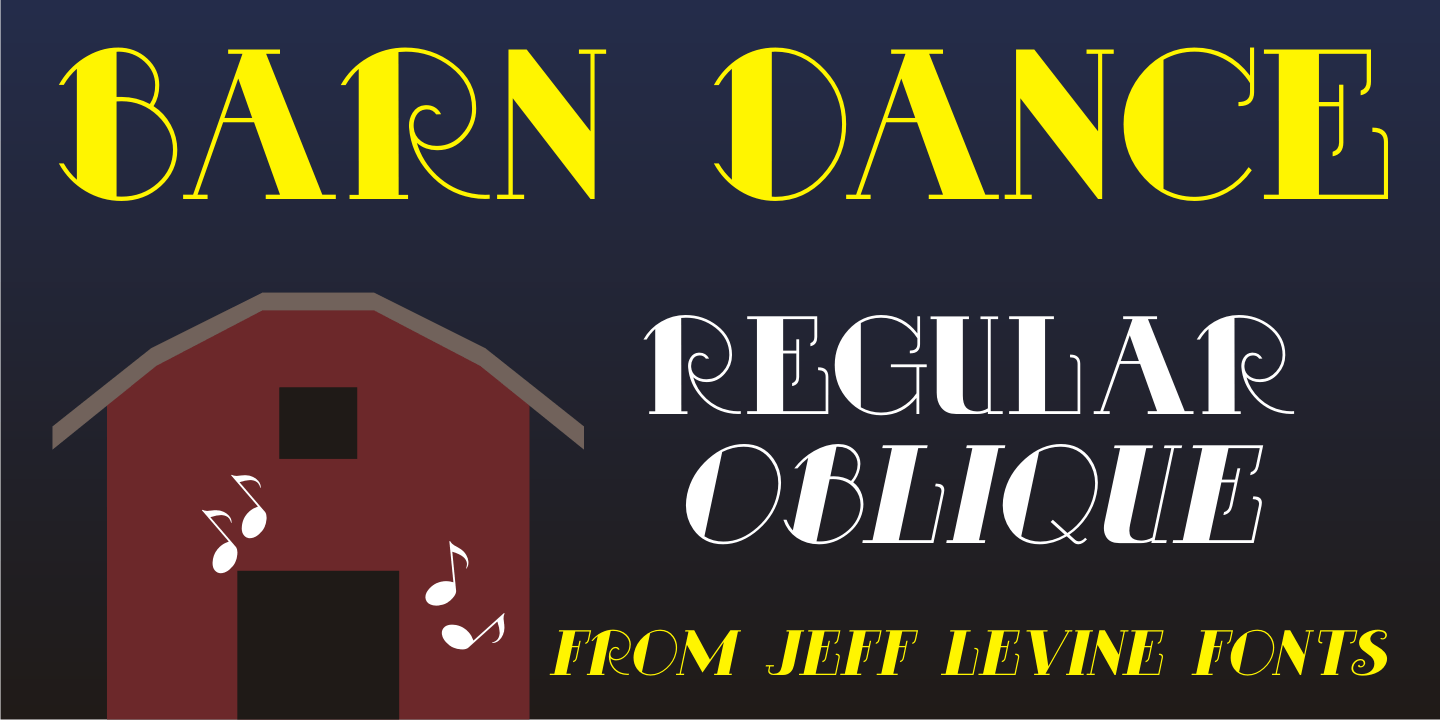
Barn Dance
The hand lettered title on the 1945 sheet music for the song 'Louisiana Hayride” is an Art Deco design with a nod to the preceding Art Nouveau era.
It is now available as Barn Dance JNL, which is available in both regular and oblique versions.
Barn Dance JNL Regular by Jeff Levine Fonts